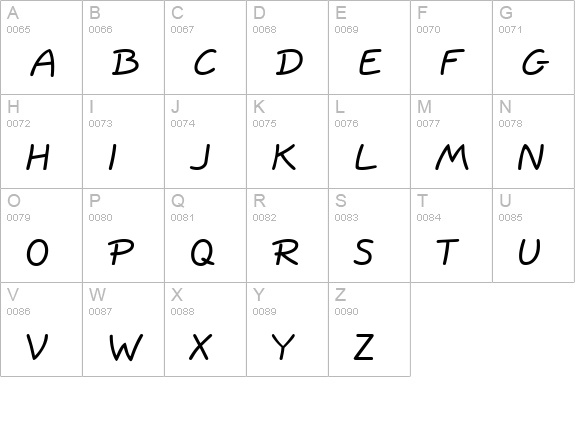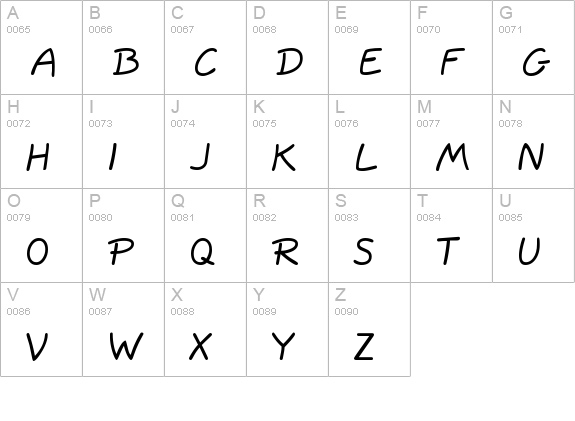
Short Hand Normal is the standard, neutral variant in the Short typeface family \xE2\x80\x94 well suited to general body text, paragraphs, and standard typographic work.
Short Hand Normal font is a stylish and elegant typeface that is perfect for adding a touch of sophistication to any design project. This font features clean and smooth lines, making it easy to read and visually pleasing. With its versatile design, Short Hand Normal font is suitable for a wide range of applications, from branding and advertising to web design and print materials. One of the great advantages of Short Hand Normal font is that it is freely available to download at FontsMarket.com. This means that you can easily access and use this font in your projects without any cost. Whether you are a professional designer or a beginner, you can take advantage of this free font to enhance the visual appeal of your creations. The Short Hand Normal font is designed with legibility in mind, ensuring that your text is clear and readable, even at smaller sizes. The letters are well-proportioned and balanced, creating a harmonious and cohesive look. This font also includes a full set of uppercase and lowercase letters, numbers, and punctuation marks, giving you plenty of options for creating unique and engaging designs. Whether you are creating a logo, a poster, or a website, Short Hand Normal font will add a touch of elegance and sophistication to your project. Its sleek and modern design will make your text stand out and leave a lasting impression on your audience. Don't miss the opportunity to download this font for free at FontsMarket.com and elevate your designs to the next level.